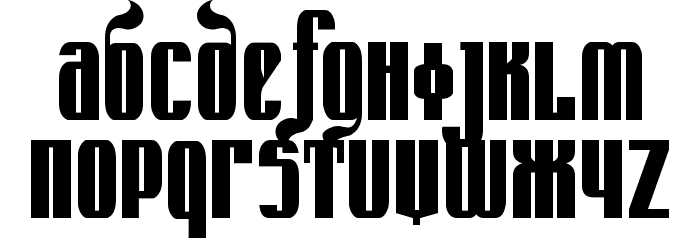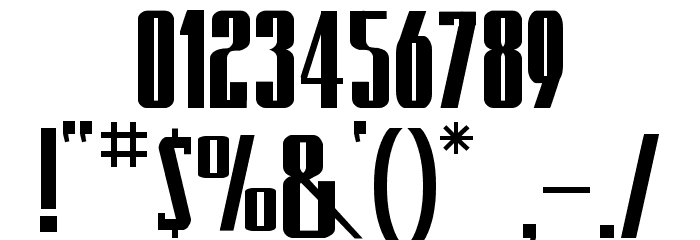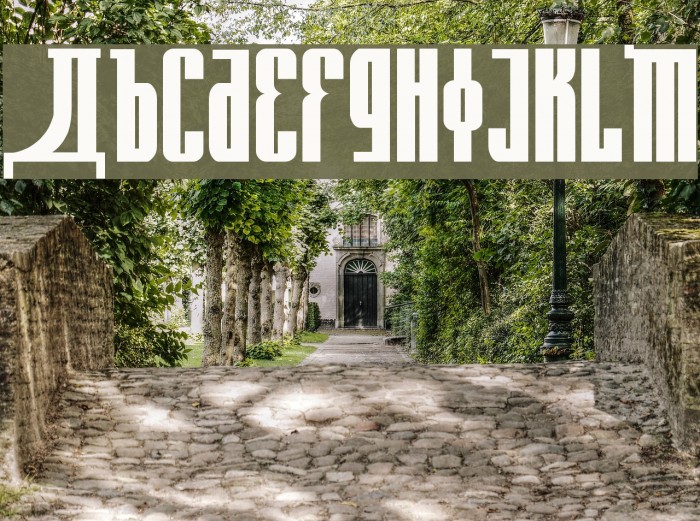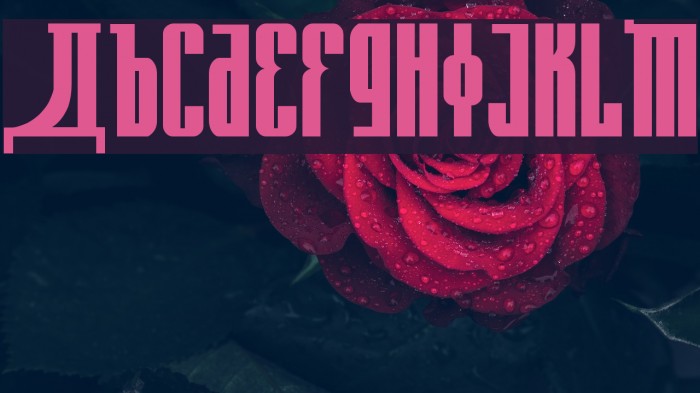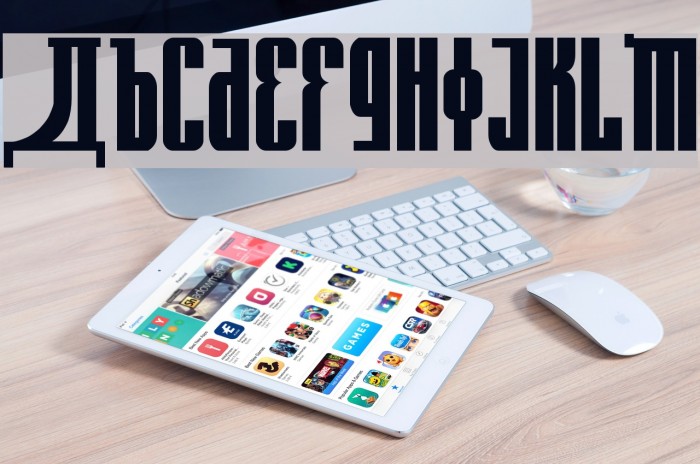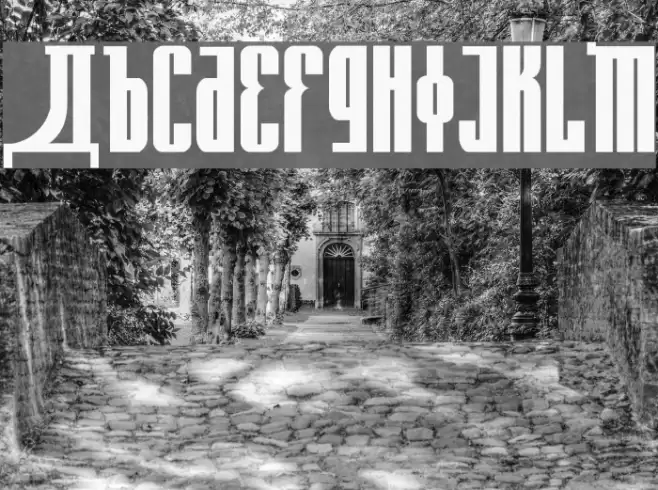
Kremlin Emperor Bold Font
This font features a bold and striking design with a strong presence. The characters are tall and narrow, with sharp angles and a distinct geometric influence. The uppercase letters have a commanding appearance, while the lowercase letters maintain a consistent style that complements the overall aesthetic. The numbers are equally bold, ensuring readability and impact. Special characters are designed with the same attention to detail, adding to the font's versatility. This typeface is ideal for projects that require a bold statement and a touch of elegance.
A bold, geometric font with sharp angles and a strong presence.
- Proposed Projects: Ideal for branding, poster design, headlines, and any project requiring a bold statement.